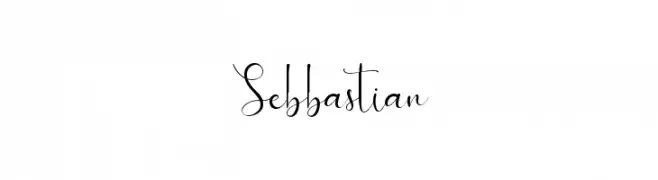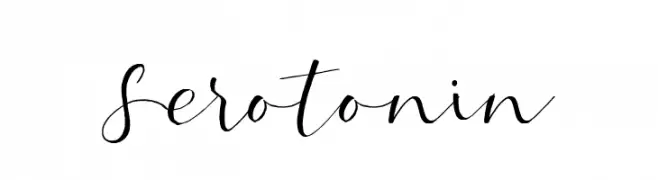
An elegant, flowing script font with interconnected letters and graceful curves.
A fluid and graceful script font with a handwritten appearance.
An elegant, flowing script font with graceful curves and dynamic slant.
A graceful, handwritten script font with elegant curves and swashes.
A modern, elegant handwritten font with thin, flowing lines and graceful curves.
A graceful, cursive script font with elegant loops and swirls.
An elegant script font with flowing, cursive strokes and graceful curves.
A graceful script font with flowing, connected letters and elegant flourishes.
A graceful and flowing script font with elegant, fluid letterforms.
An elegant, flowing script font with graceful curves and sophisticated flourishes.